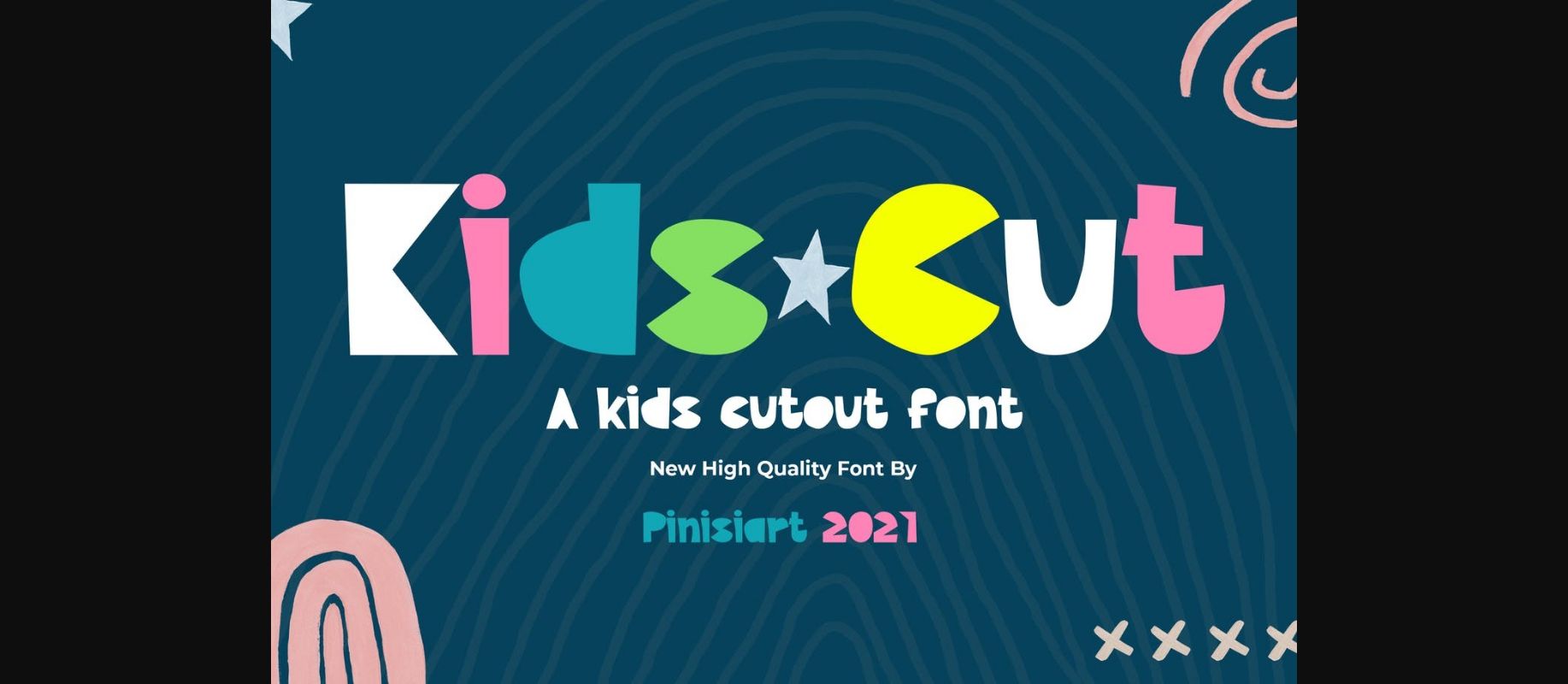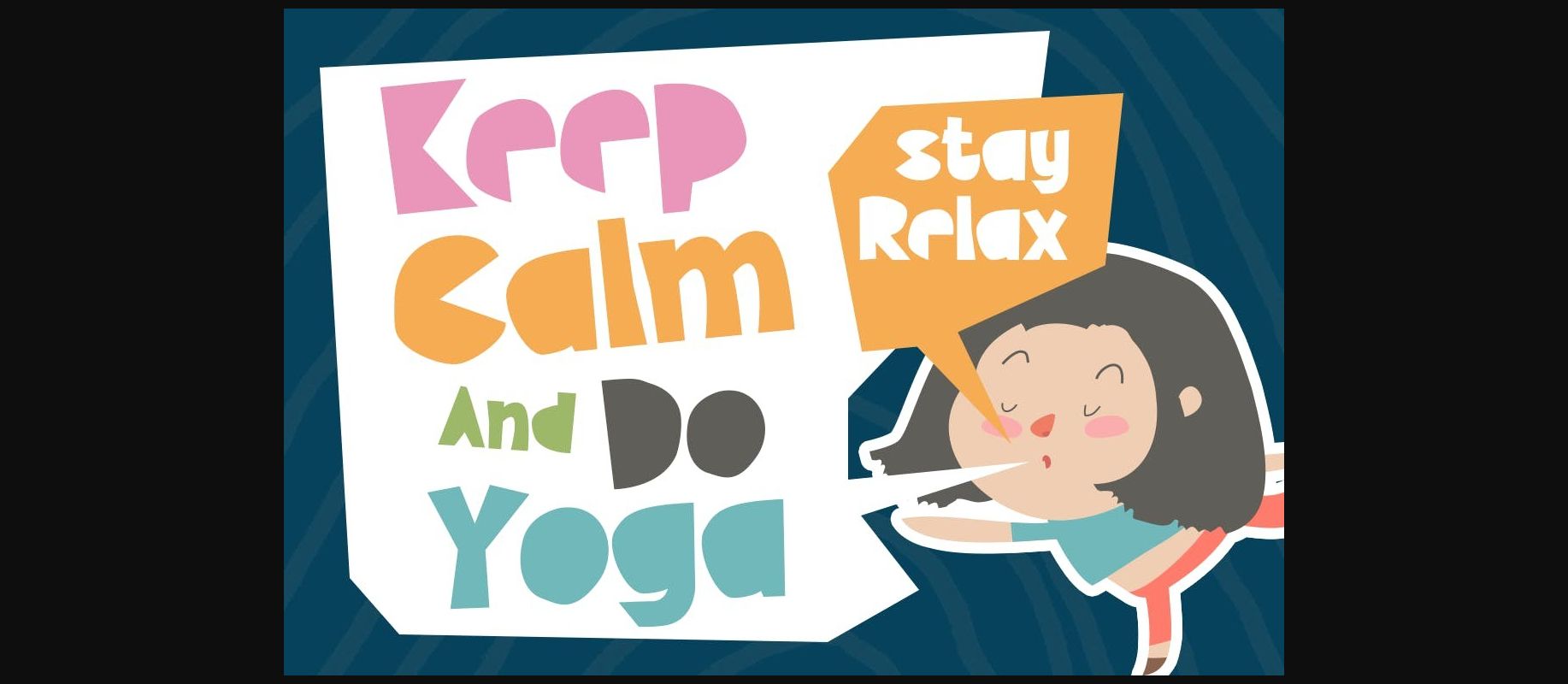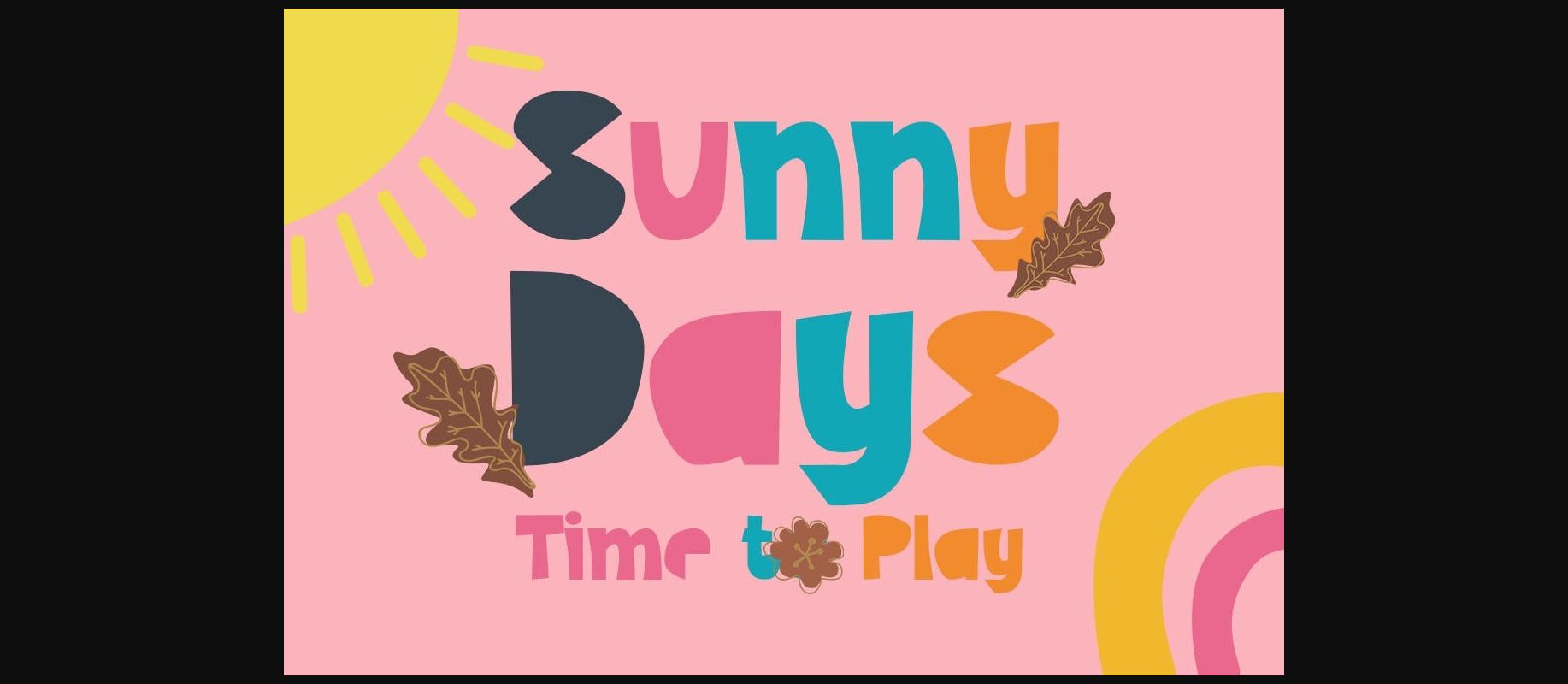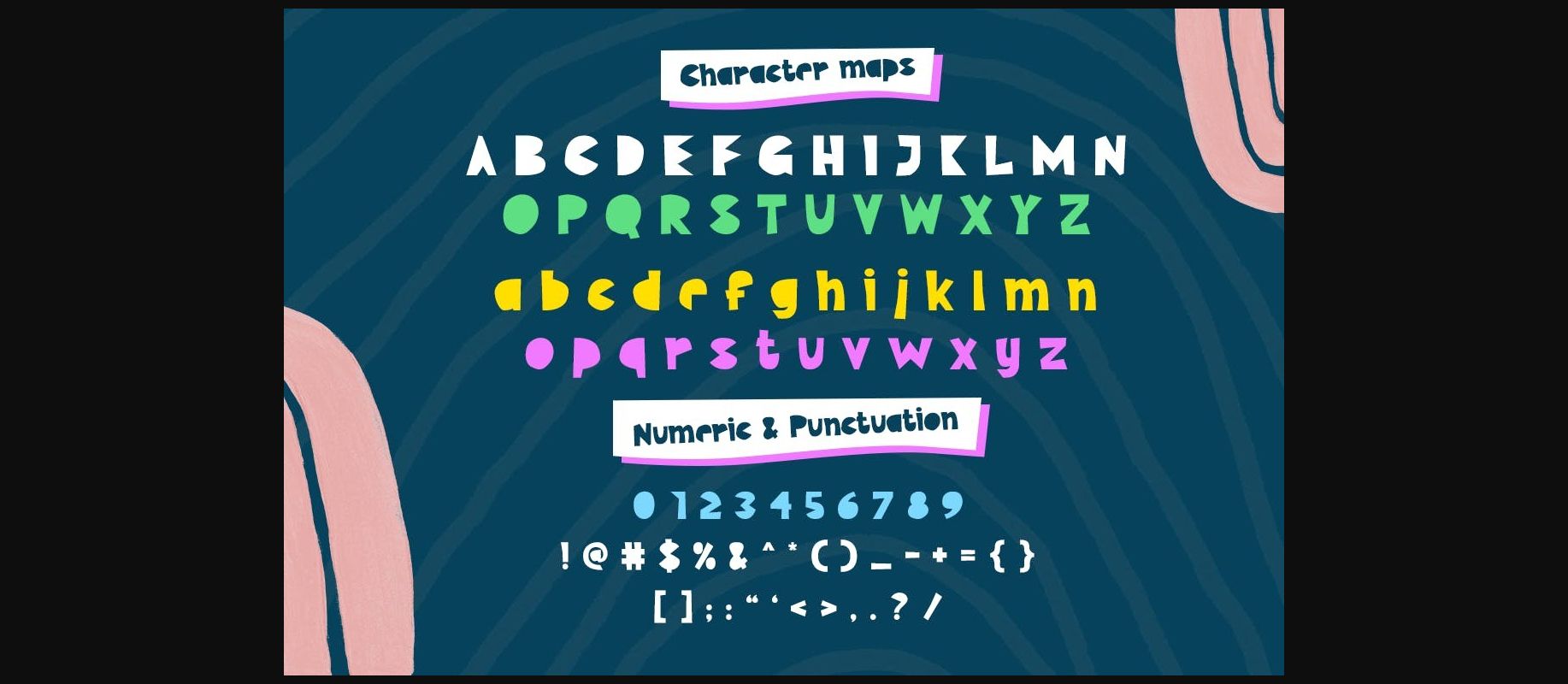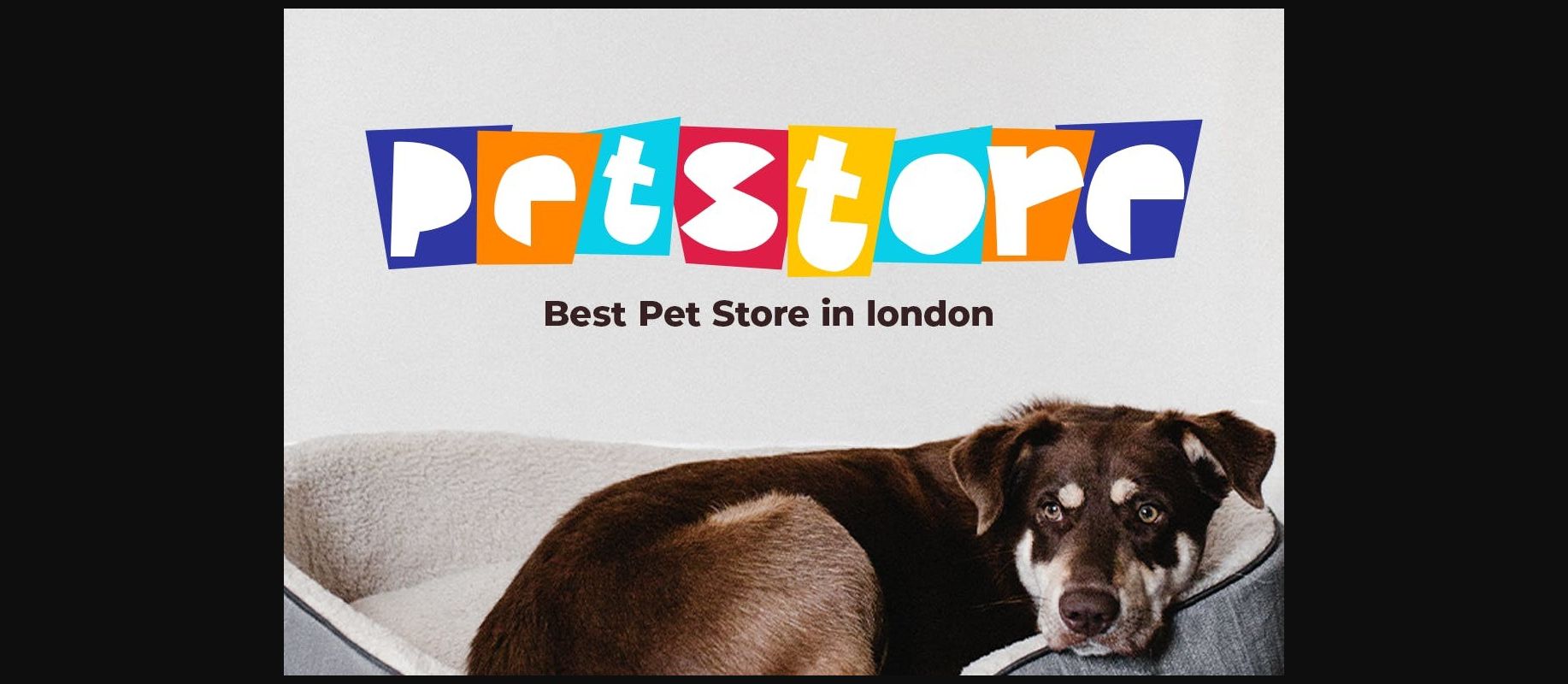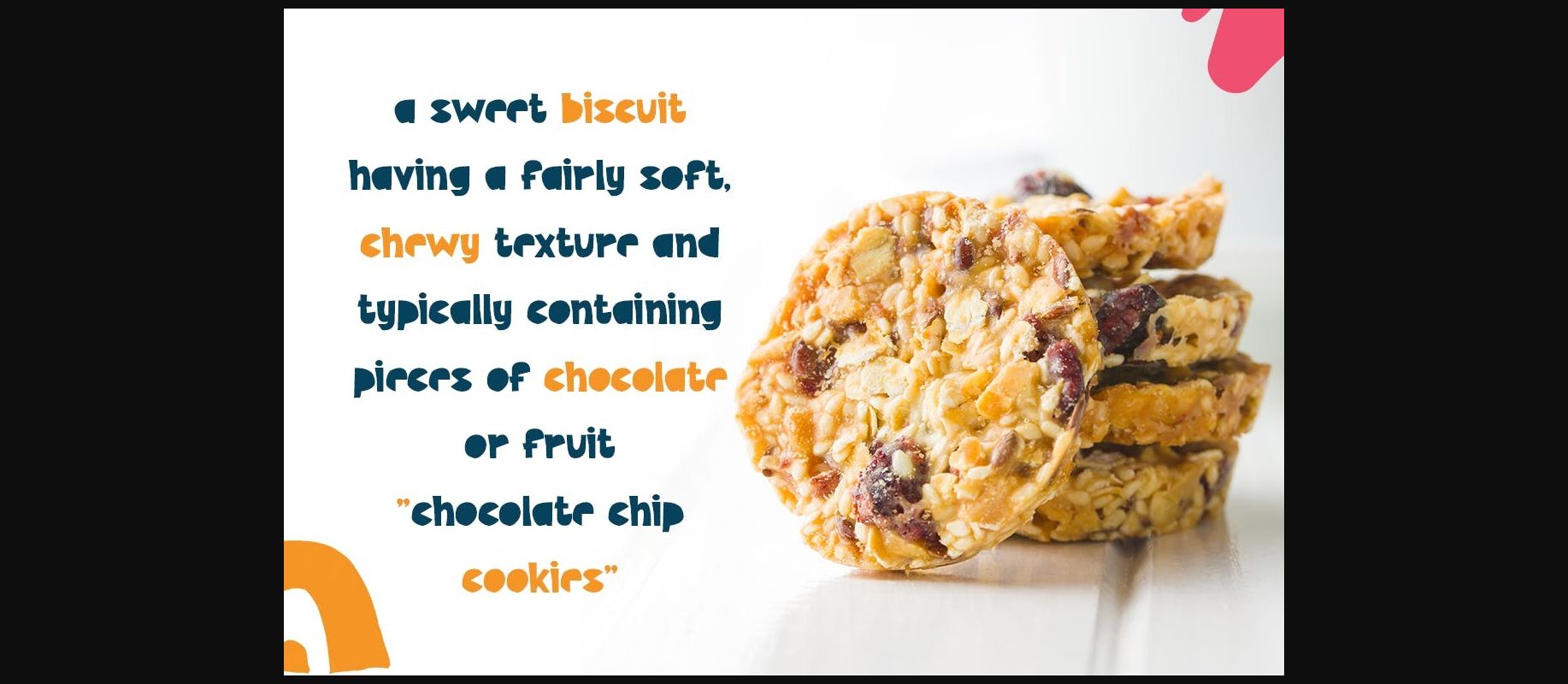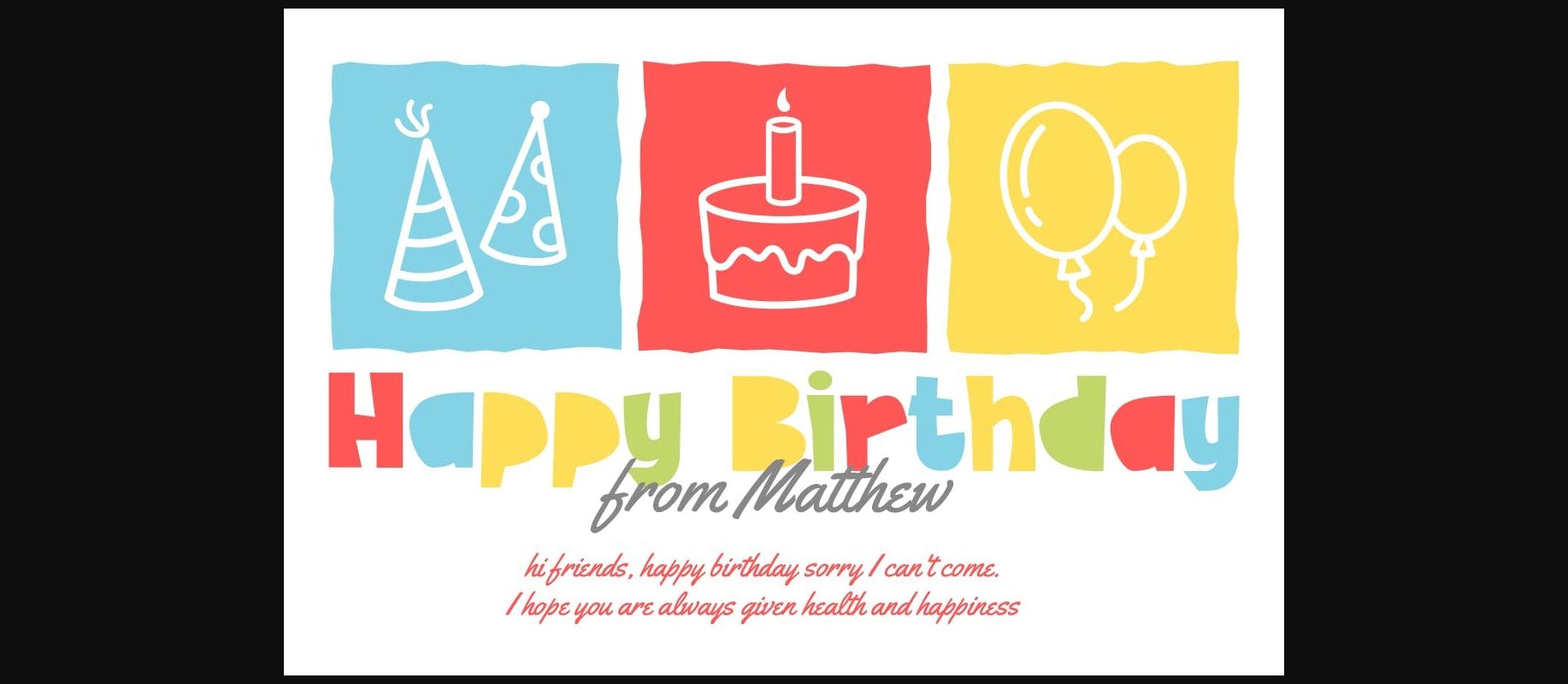
Kids Cut – cutout kids decorative font.
A fresh paper that is cut out and creates a font. Full of happiness and joyful adventure.
Suited perfectly for kids themes books market, online games, stationary, school supplies font, poster, birthday invitation, youtube covers, youtube thumbnails, social media page covers, and so on.